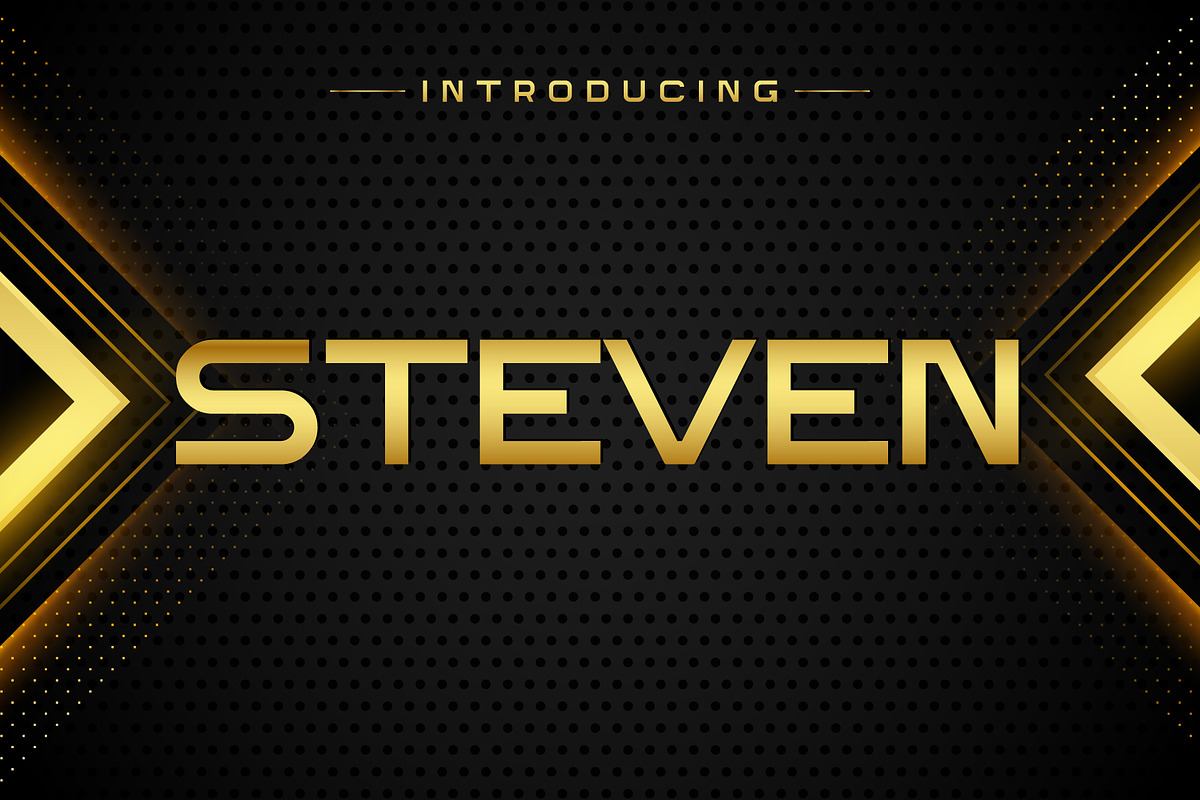
Steven Fonts Free Download is a clean, modern type collection designed to bring clarity, confidence, and versatility to any project. Whether you're working with a bold sans serif, a stylish script, or a professional serif variation, the Steven font family covers a wide range of creative needs—from branding and editorial layouts to web design and social media graphics.
Each style within the Steven Fonts collection is carefully crafted to ensure legibility, visual harmony, and aesthetic appeal across print and digital platforms. This makes it a reliable choice for designers, agencies, and entrepreneurs seeking a polished, timeless look.